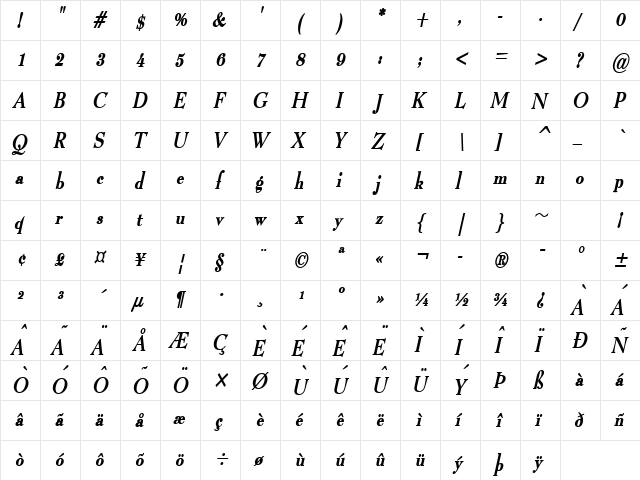
Luciano Thin BoldItalic
Design Context for Luciano Thin Typeface
Luciano Thin is a composed and adaptable typeface that performs quietly and consistently across a wide range of design contexts. The slanted form adds forward momentum and visual energy. The heavy weight commands attention and anchors typographic hierarchies.